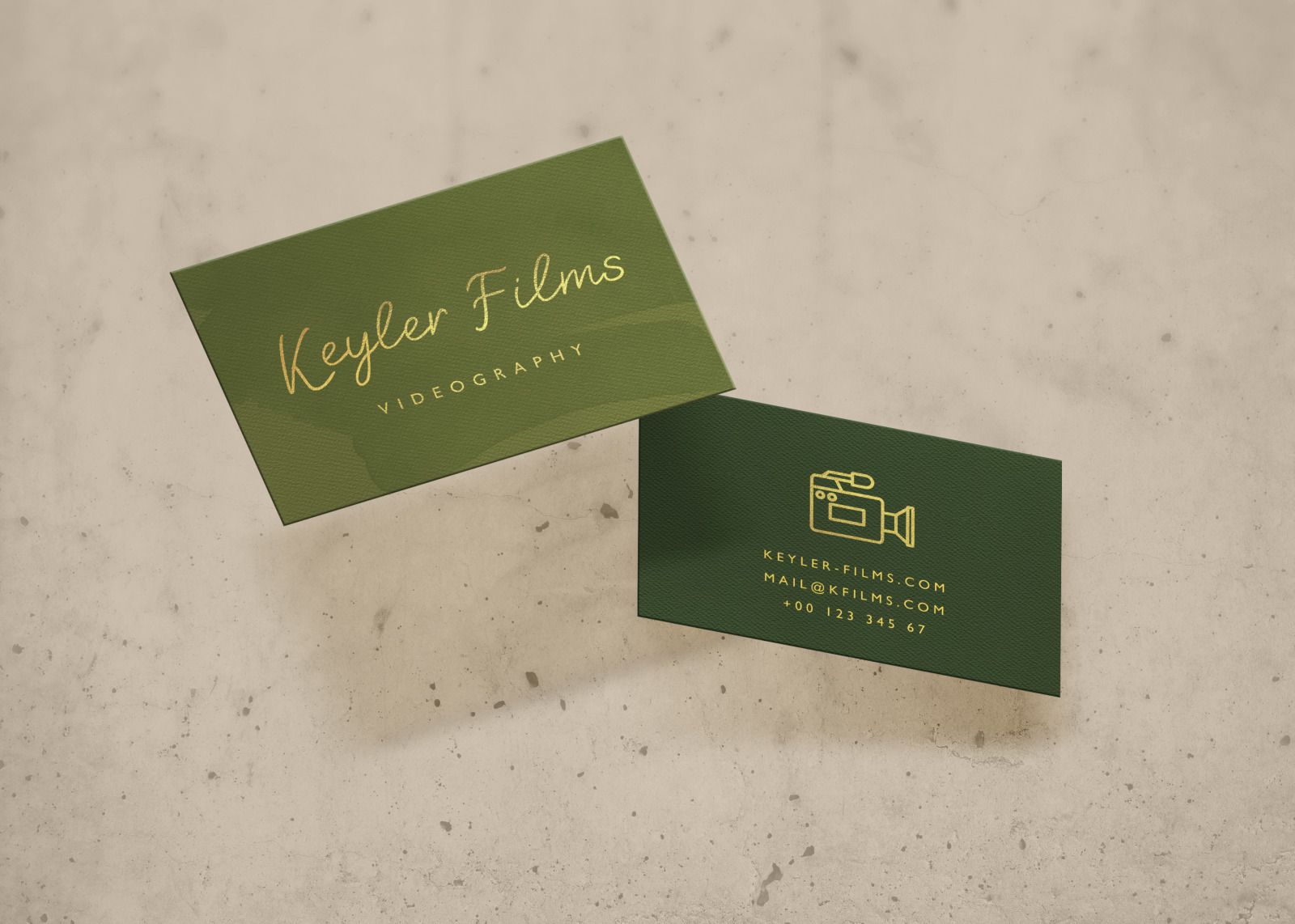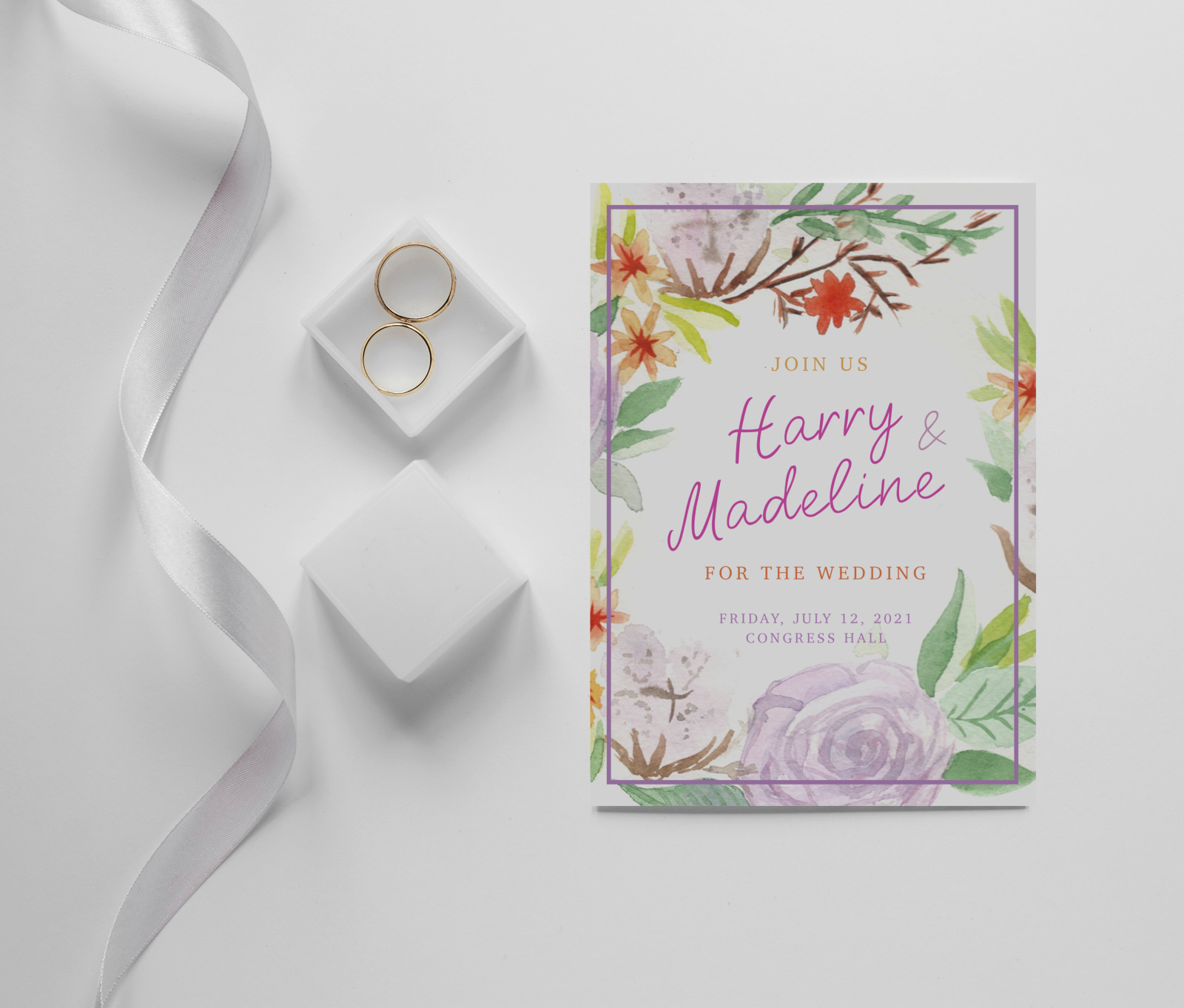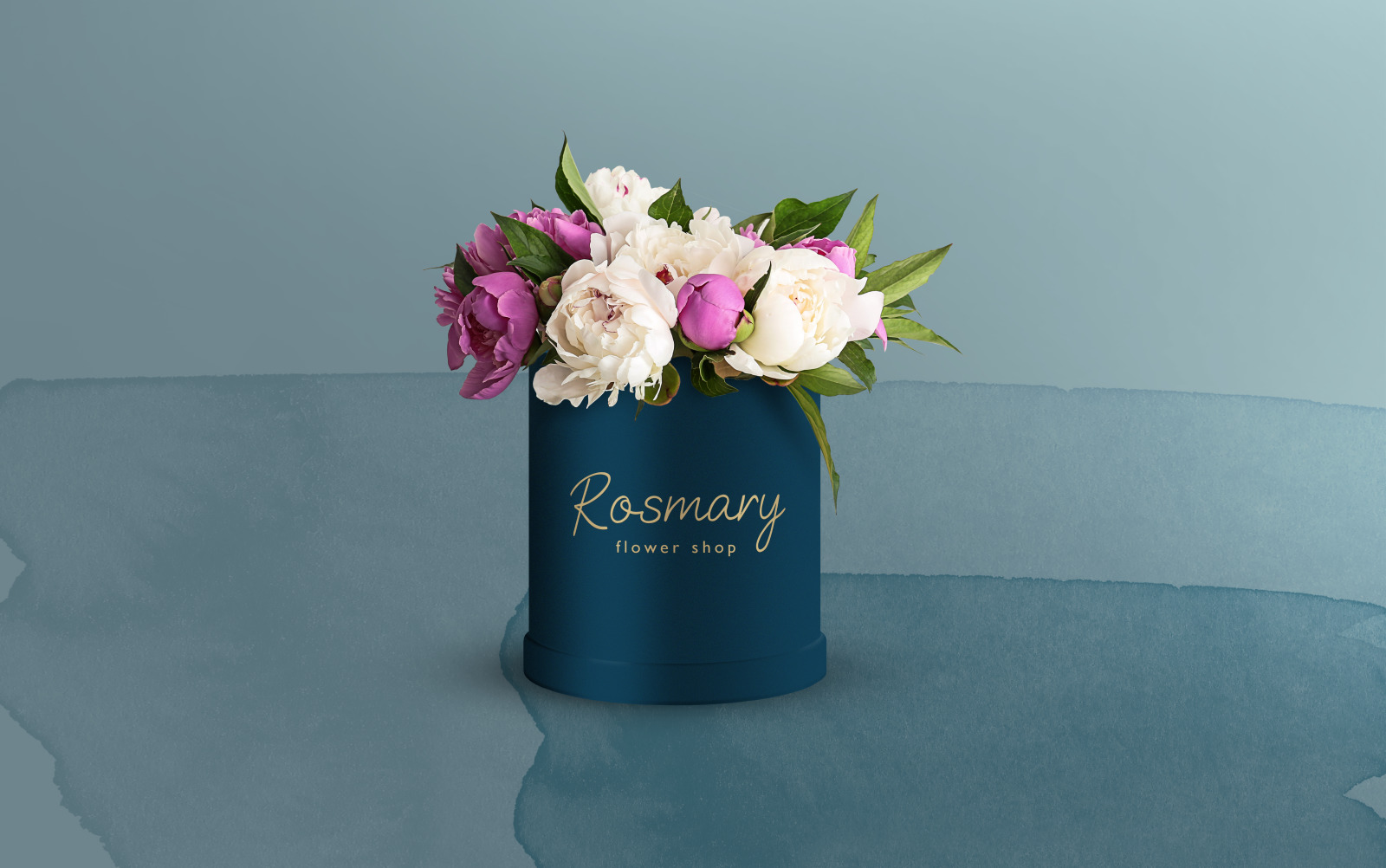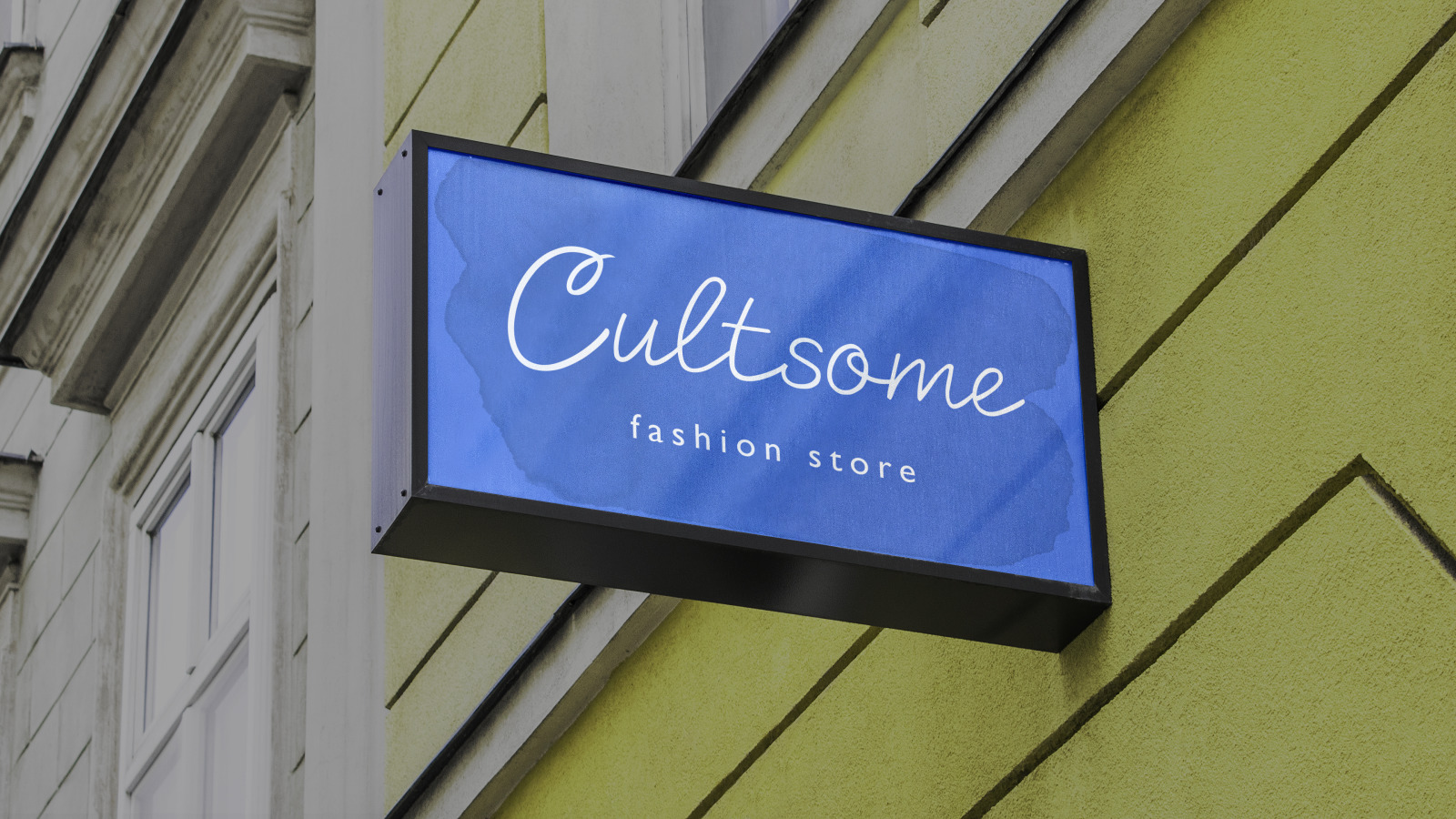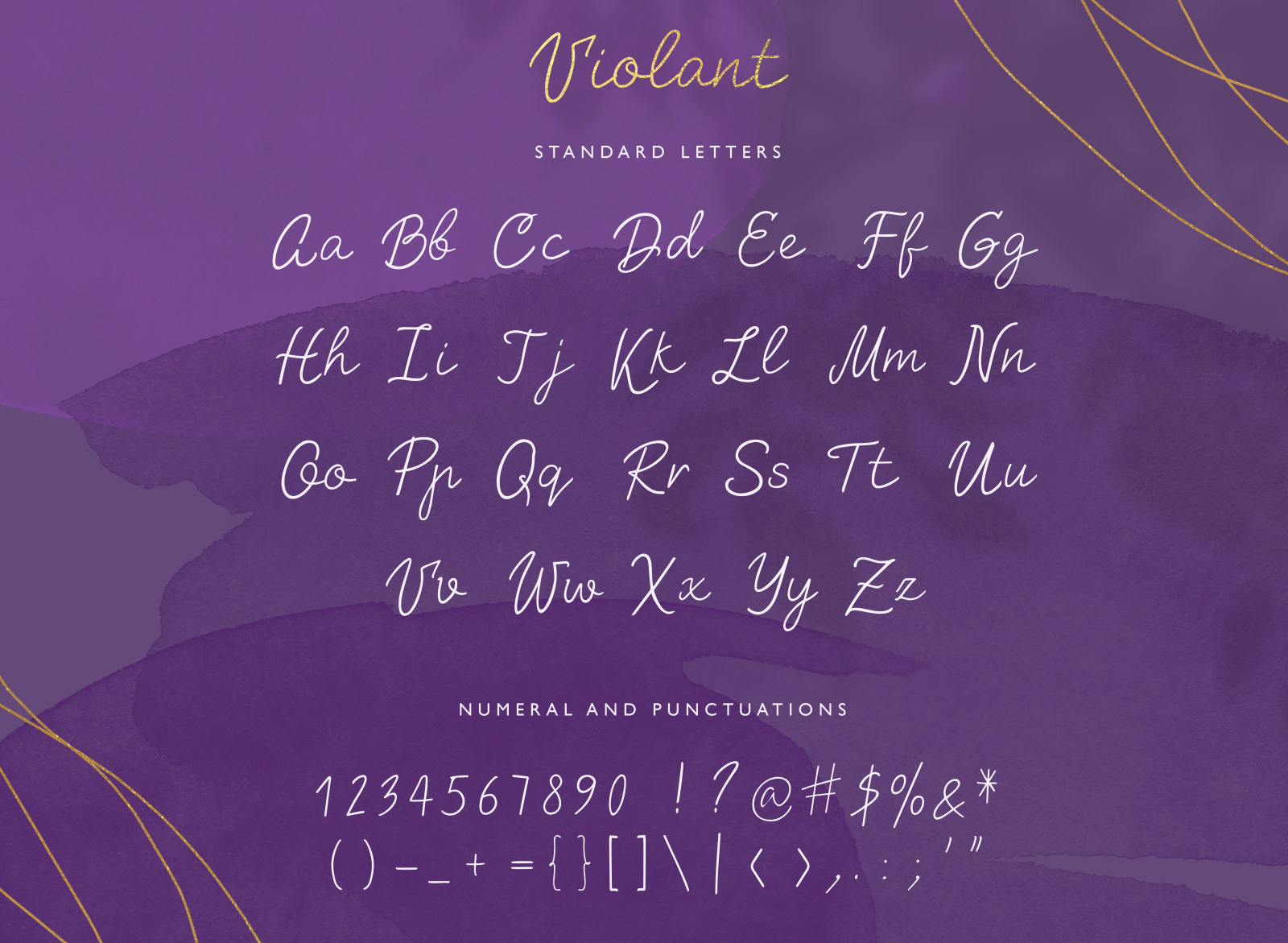
Violant Elegant Font
Violant is a modern elegant font. It is very versatile handwritten font.
You can use it for:
- Logos & Branding
- Wedding designs and invitation
- Stationery and social media posts
- Product packaging and product designs
A-Z Character Set
Numerals & Punctuations